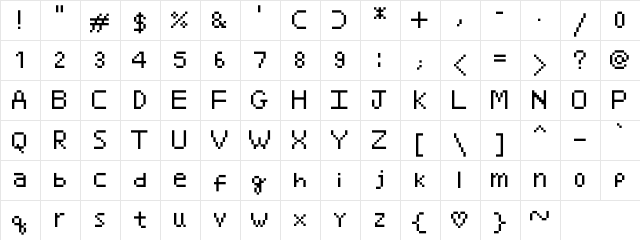
Minami Regular
Design Context for Minami Typeface
Minami is a composed and adaptable typeface that performs quietly and consistently across a wide range of design contexts.